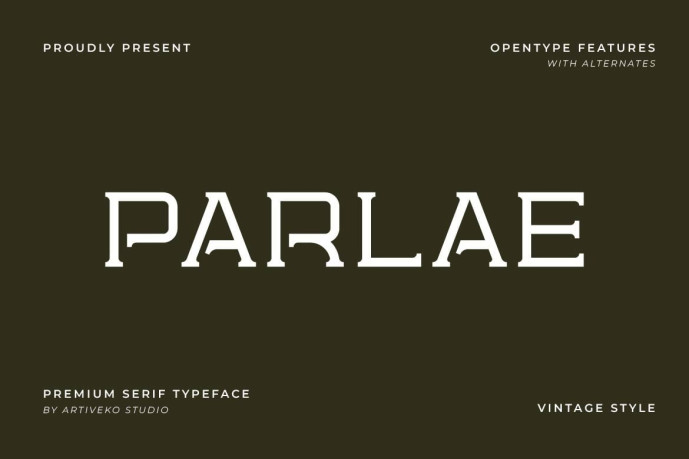
Parlae – Vintage Serif Font
Designer: Iwan Alwan
Parlae – Vintage Serif Font
This font is perfect for posters, social media posts, branding, personal projects, etc.